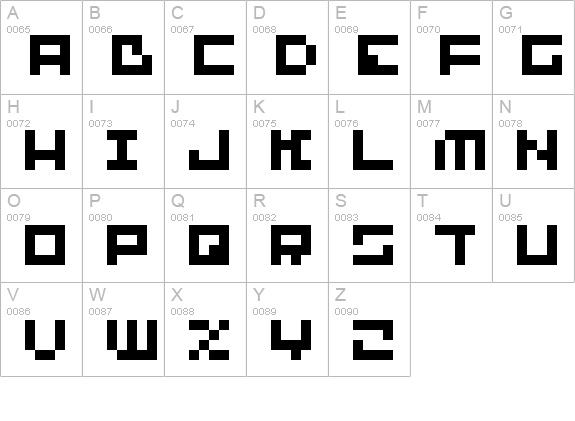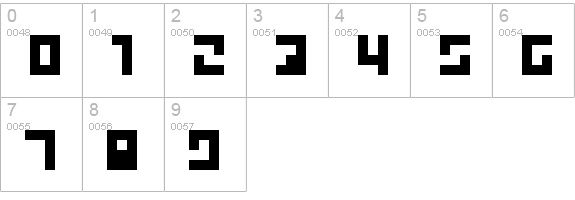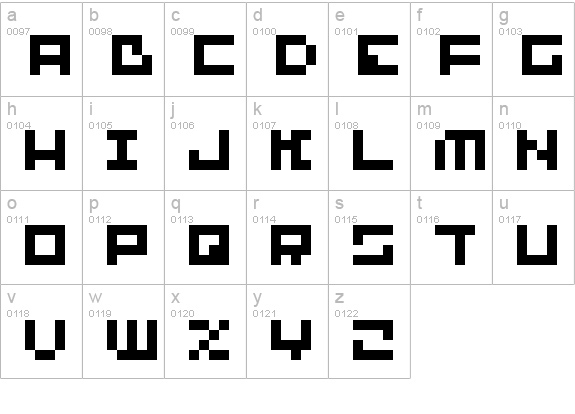
The bit-01:cube 16 remix font is a modern and stylish typeface that adds a touch of creativity to any design project. With its unique geometric shapes and clean lines, this font is perfect for creating eye-catching headlines, titles, and logos. The remix version of bit-01:cube 16 font offers a fresh twist on the original design, making it even more versatile for various design applications. Best of all, this font is available for free download at FontsMarket.com. Whether you're working on a personal project or a commercial design, bit-01:cube 16 remix font is a fantastic choice that will help your creations stand out. Don't miss out on the opportunity to enhance your designs with this stylish and modern typeface that is freely accessible for everyone.